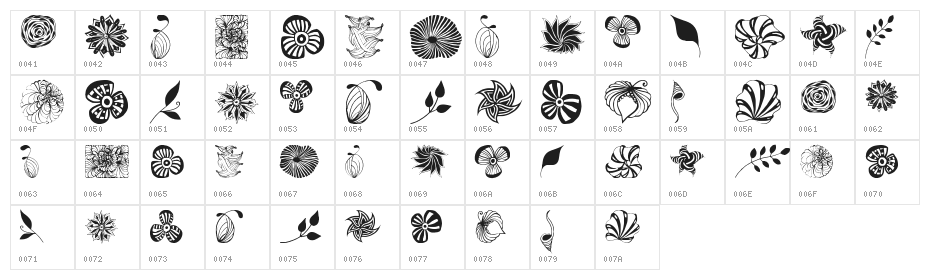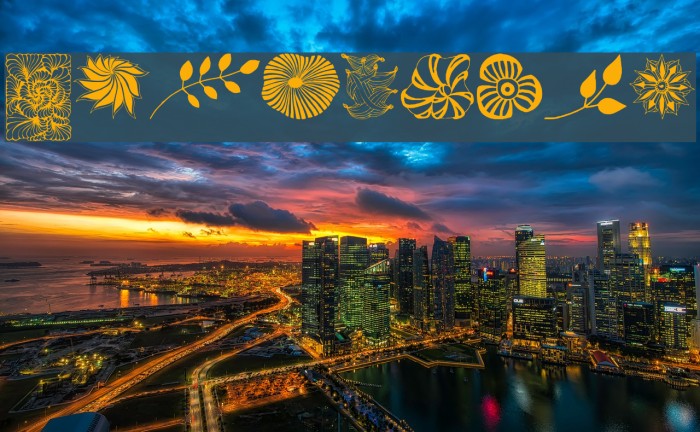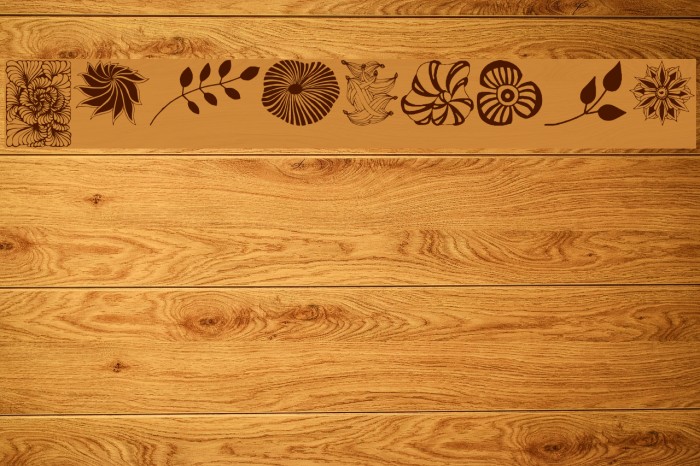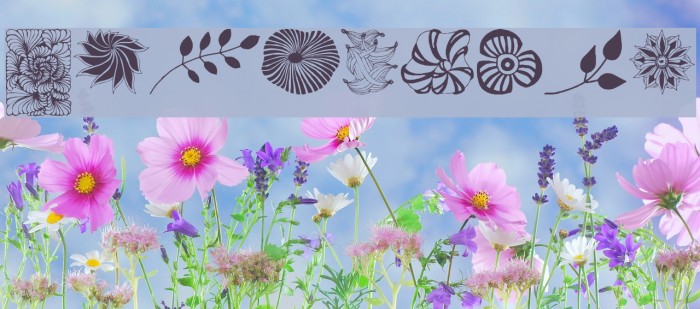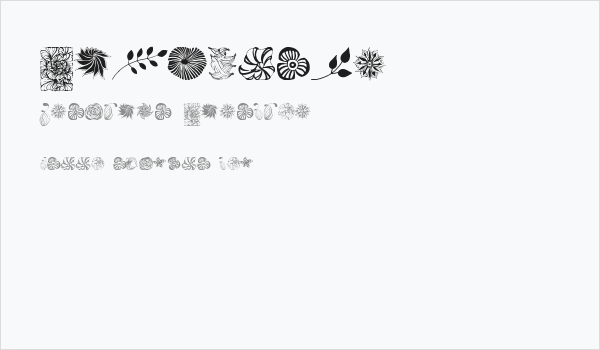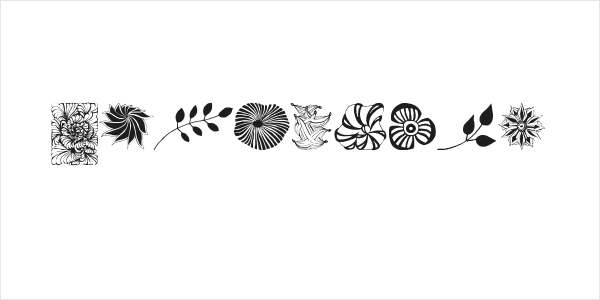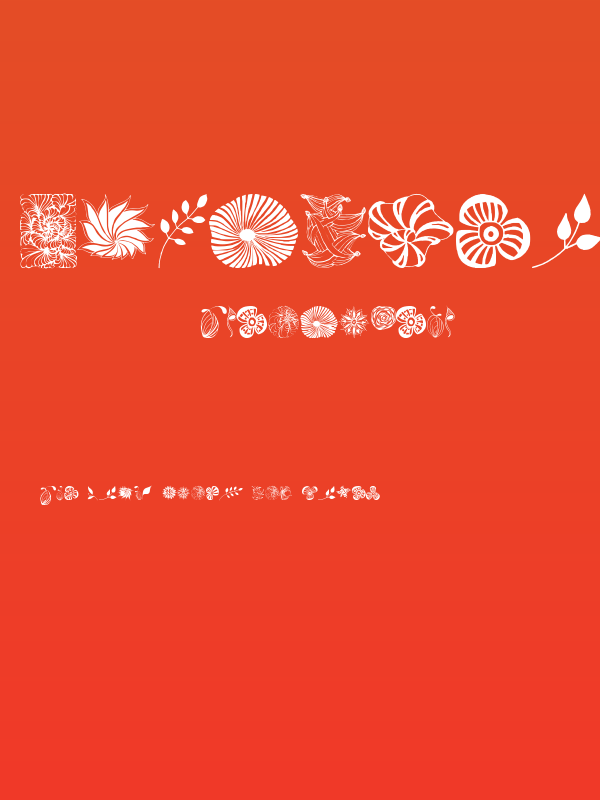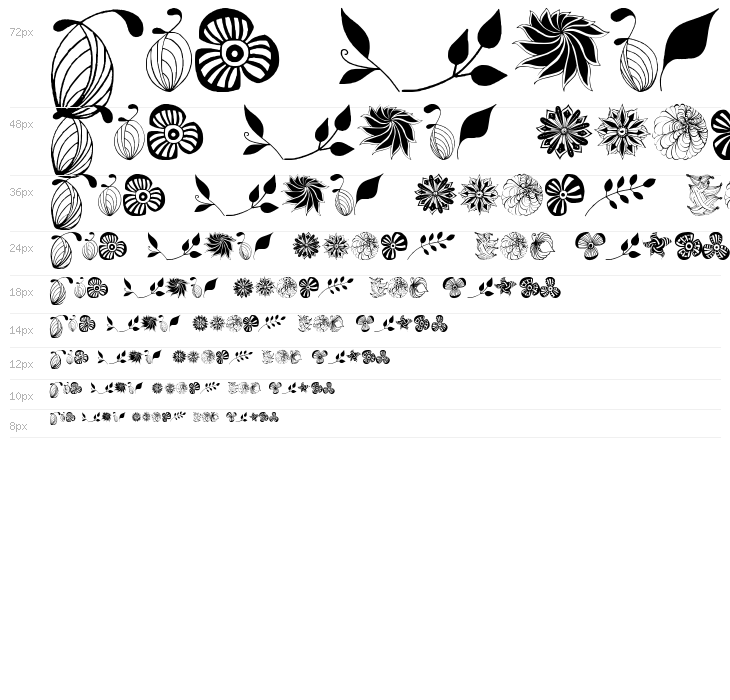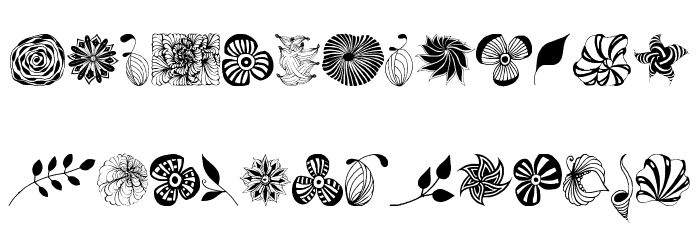
Dingfleur Font
Dingfleur Description
A decorative collection of intricate floral and botanical dingbats, featuring a variety of stylized flowers, leaves, and organic shapes in black and white. Each glyph is unique, with detailed line work and ornamental patterns, suitable for embellishing designs.
| Overall Style | Decorative, Ornamental, Botanical |
| Use Case | Decorative elements, Borders, Accents |
| Proposed Projects | Invitations, greeting cards, scrapbooking, decorative borders, packaging, digital art, and craft projects. |